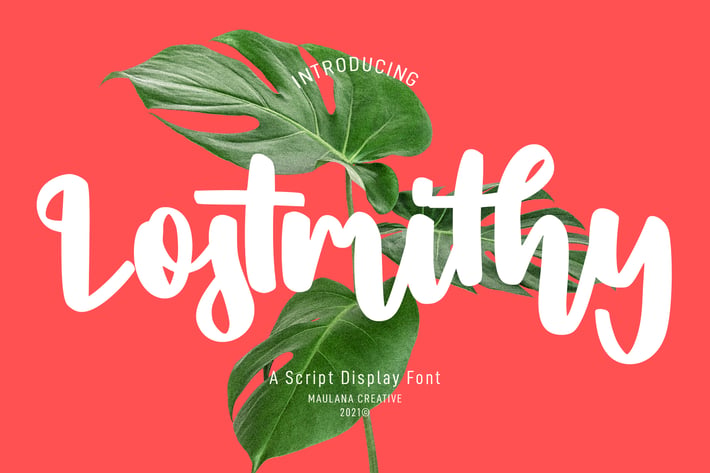
Lostmithy Script Display Font
Lostmithy is a quirky handwritten script font. With bold stroke, upright and fun character with a bit of ligatures and lowercase alternatives. To give you an extra creative work. Lostmithy font support multilingual more than 100+ language. This font is good for logo design, Social media, Movie Titles, Books Titles, a short text even a long text letter and good for your secondary text font with sans or serif. Make a stunning work with Lostmithy font.